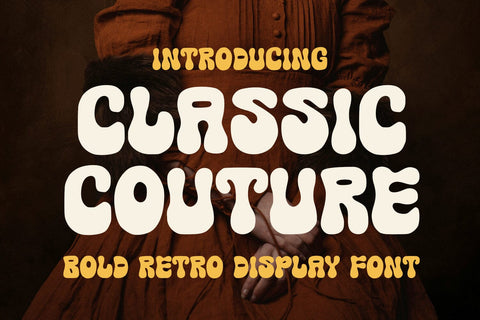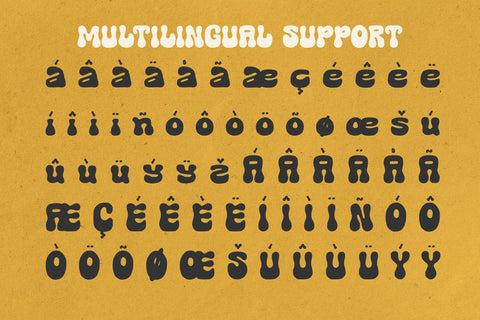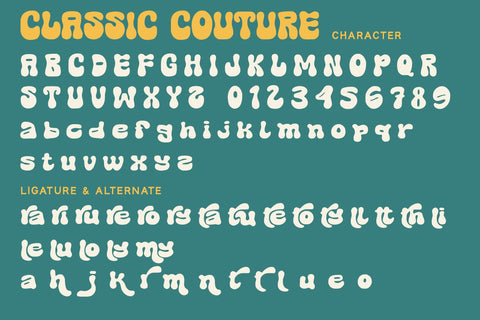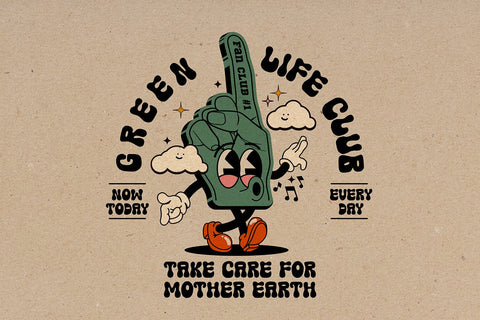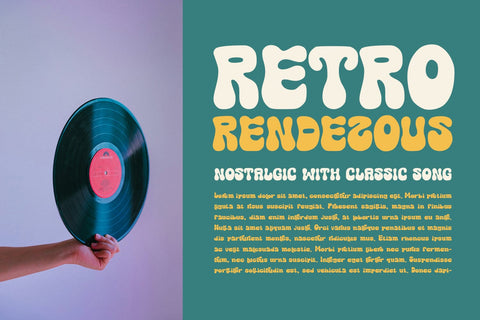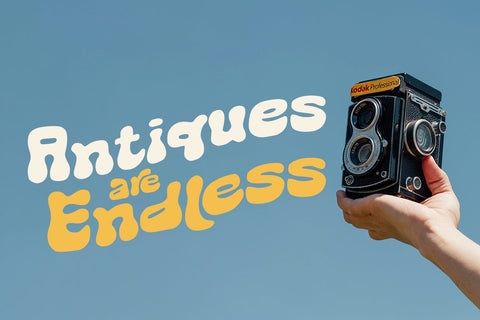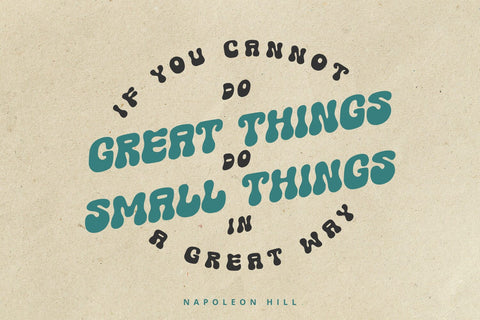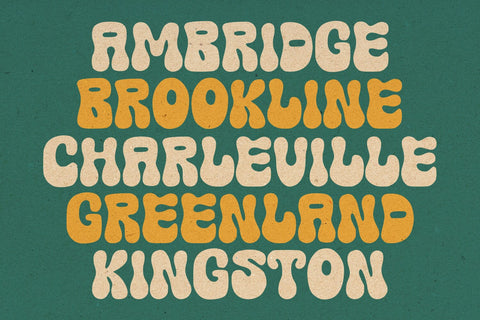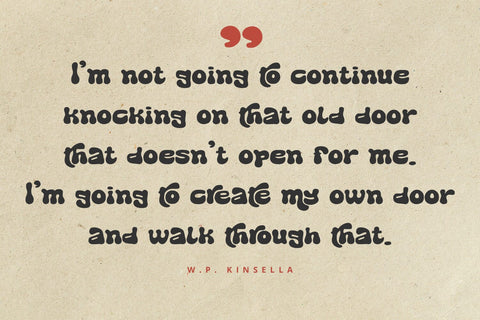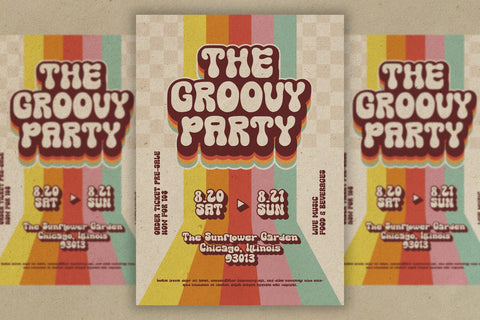
Classic Couture - Retro Font
Classic Couture is a retro font with authentic and classic feels. It will be perfectly used for Branding, Logo Design, Lettering, Logotype, Clothing, Poster, magazine, packaging, posters, shopping bags, t-shirts, book covers, photography, special events and other design project.